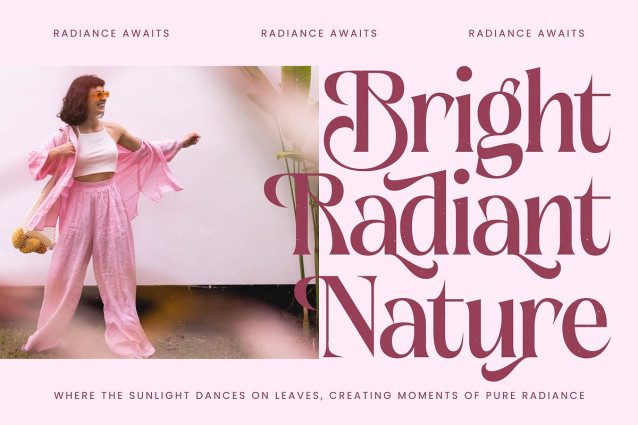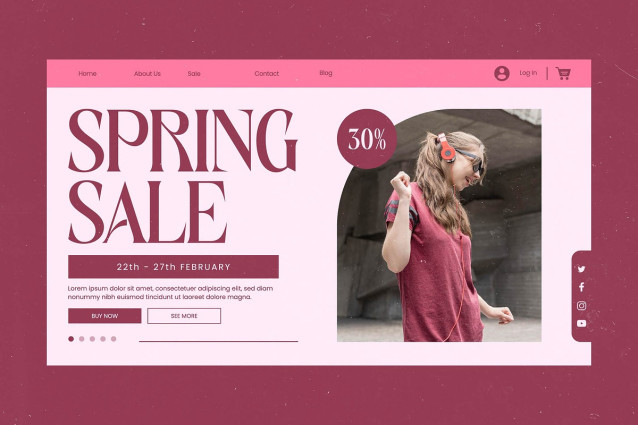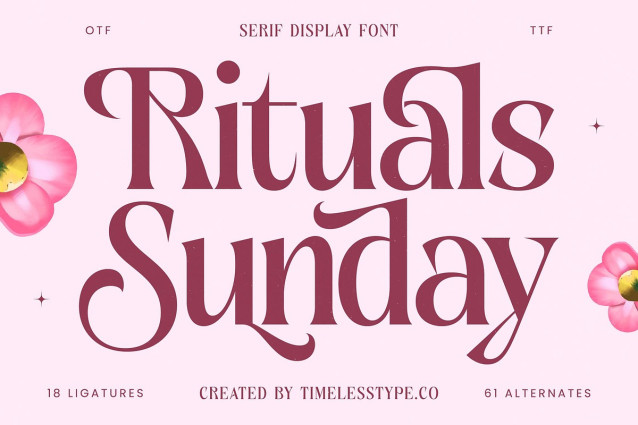
Rituals Sunday Font
Rituals Sunday Font – Serif Display Font , from Timelesstype.Co , Suitable for any projects such as: logos, branding projects, homeware designs, product packaging, mugs, quotes, posters, shopping bags, t-shirts, book covers, name card, invitation cards, greeting cards, label, photography, watermark, special events, and all your other luxury and beautiful projects that need a Luxury Serif taste.